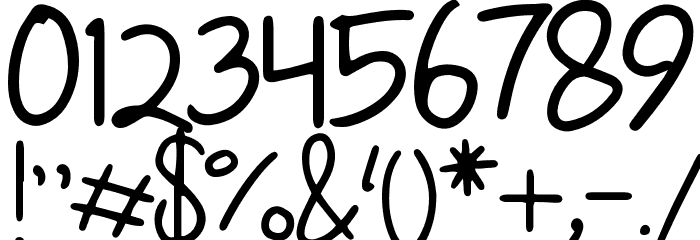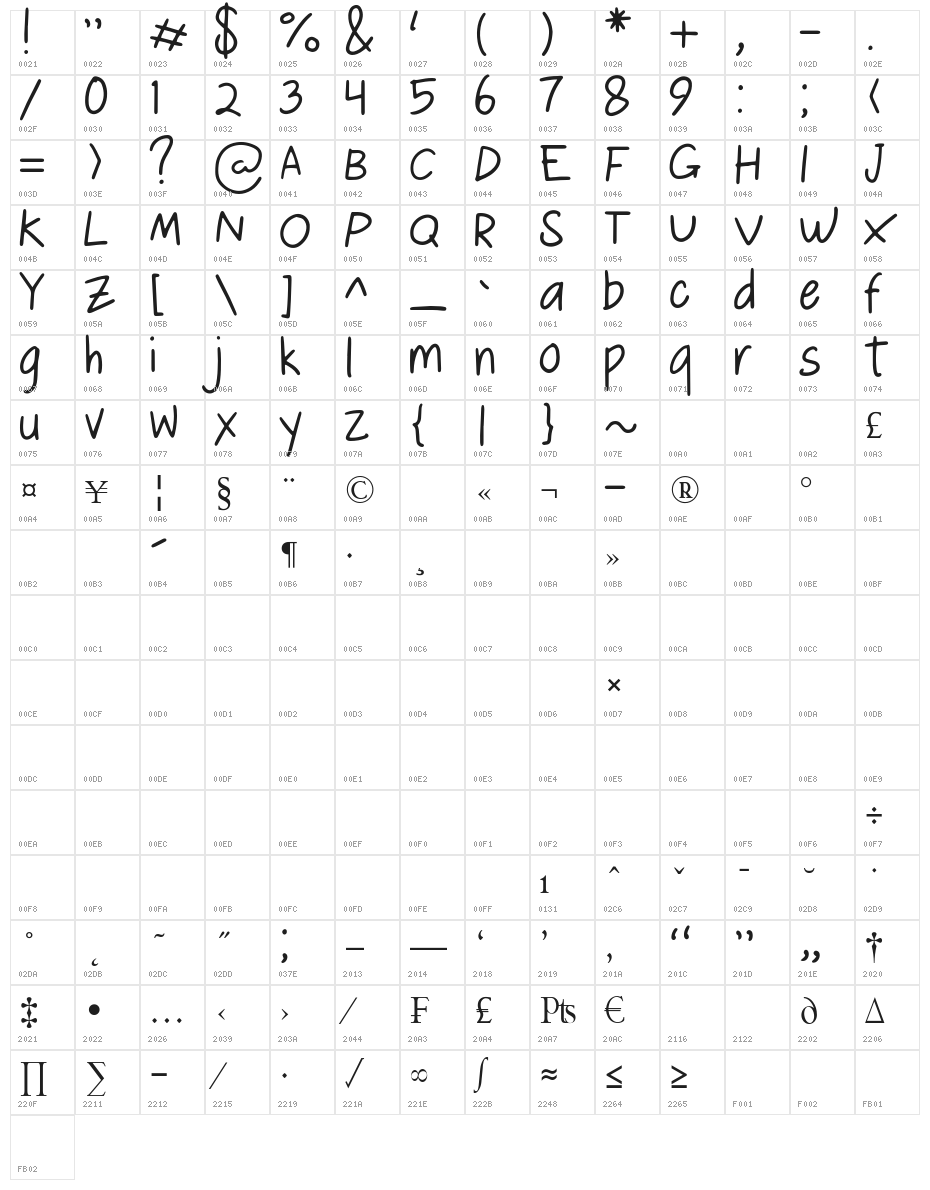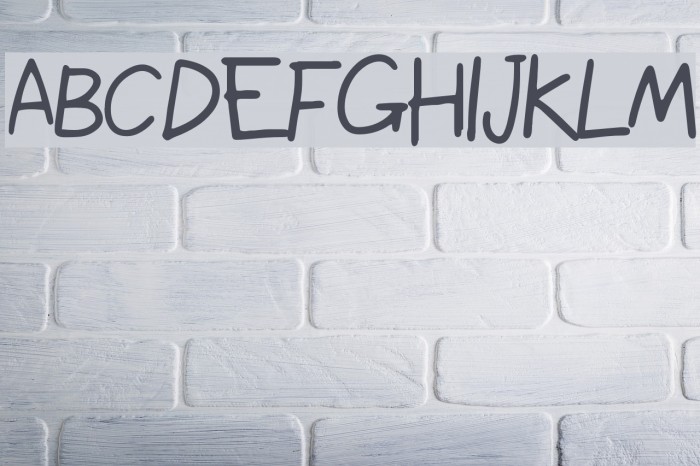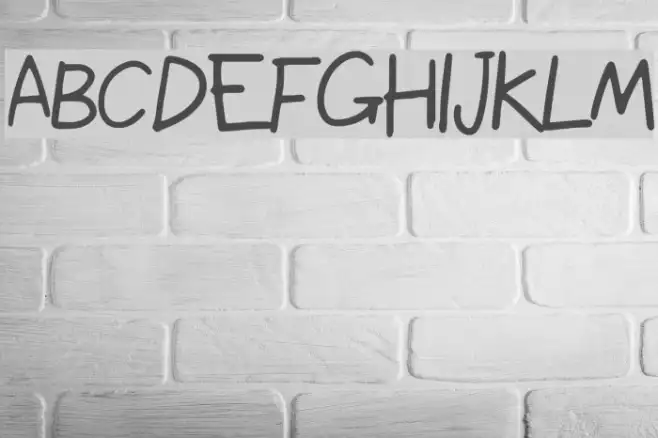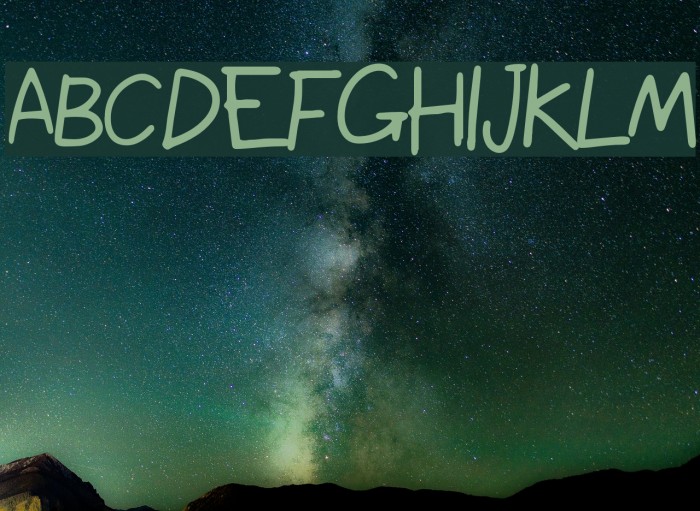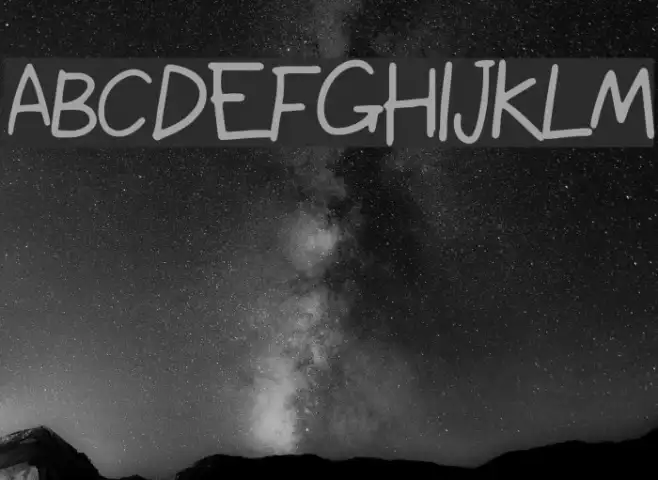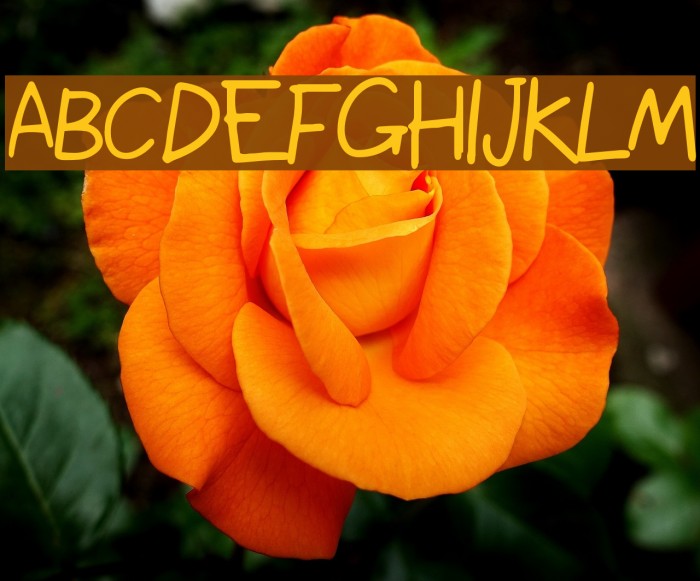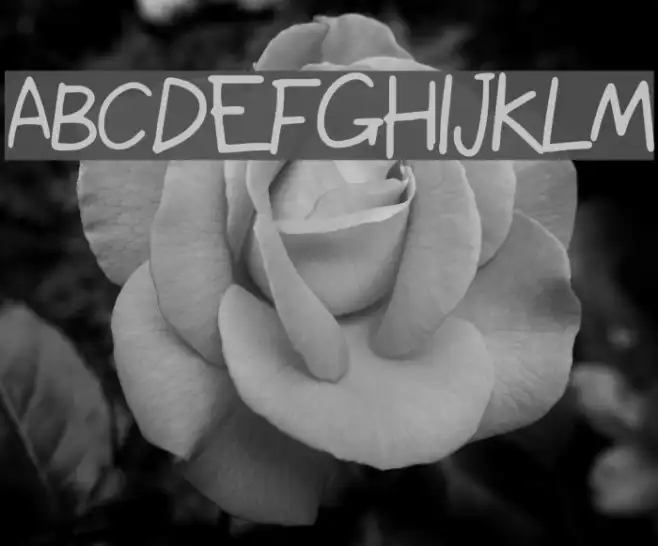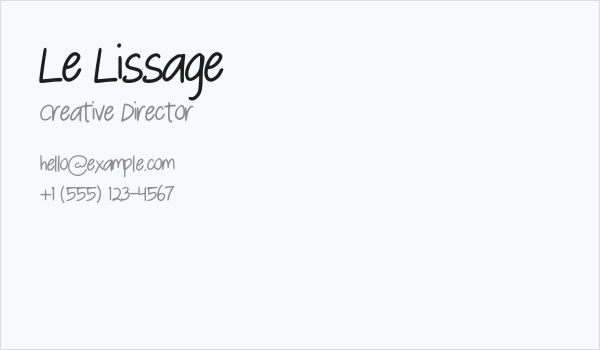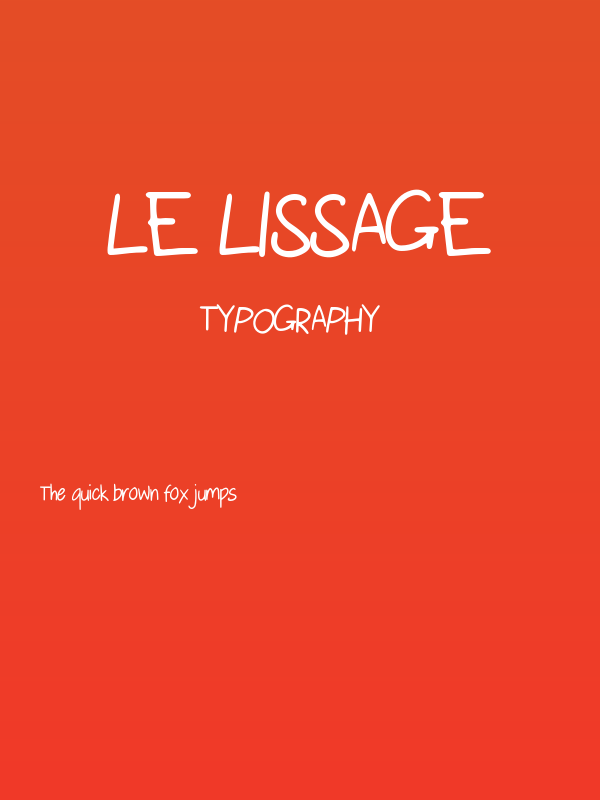
Le Lissage Font
Le Lissage Description
This font features a playful and casual handwritten style, characterized by its smooth, flowing lines and slightly irregular shapes. The letters have a consistent stroke width, giving it a uniform appearance while maintaining a lively and informal feel. The uppercase and lowercase letters are well-balanced, with a slight slant that adds to its dynamic nature. The numerals and special characters are crafted with the same attention to detail, ensuring readability and coherence across all elements. This font exudes a friendly and approachable vibe, making it suitable for a variety of creative projects.
| Proposed Projects | Ideal for greeting cards, invitations, children's books, and playful branding projects. |